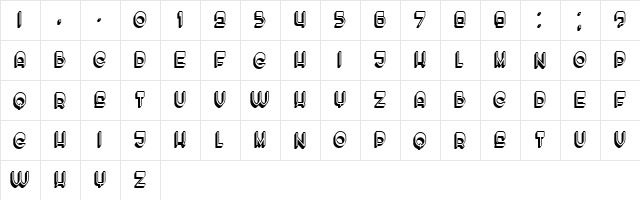
Enough Hollow Regular
Design Context for Enough Hollow Typeface
Enough Hollow is a composed and adaptable typeface that performs quietly and consistently across a wide range of design contexts.